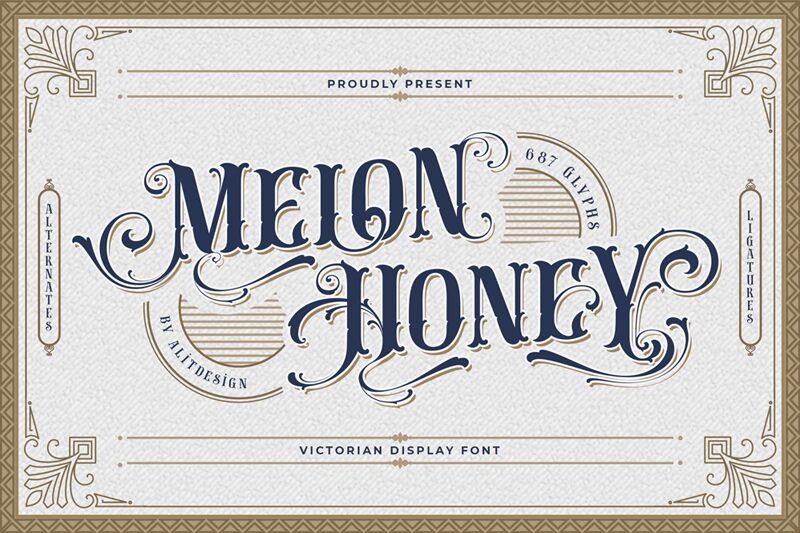
Melon honey Regular
Melon Honey font by Alit Design is a retro display typeface with vintage-inspired appeal and ornate gothic elements. It’s theatrical yet elegant, with flowing details designed for dramatic flair and style. The font has a decorative look that exudes a playful personality and nostalgic appearance, especially if used alongside floral drawings and other art illustrations.